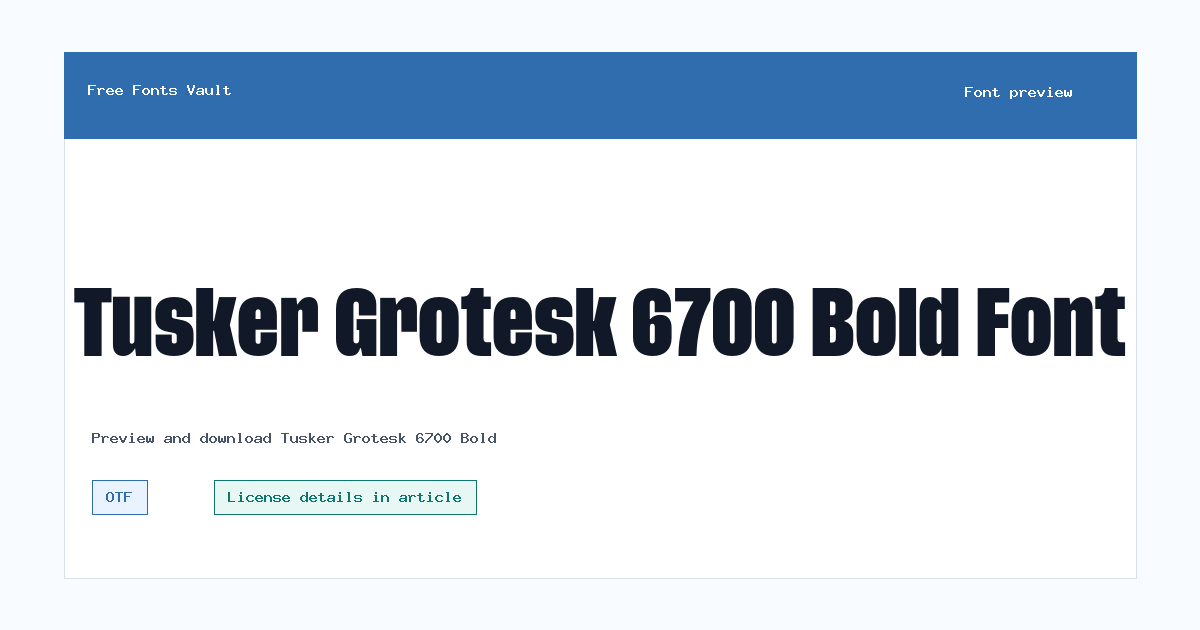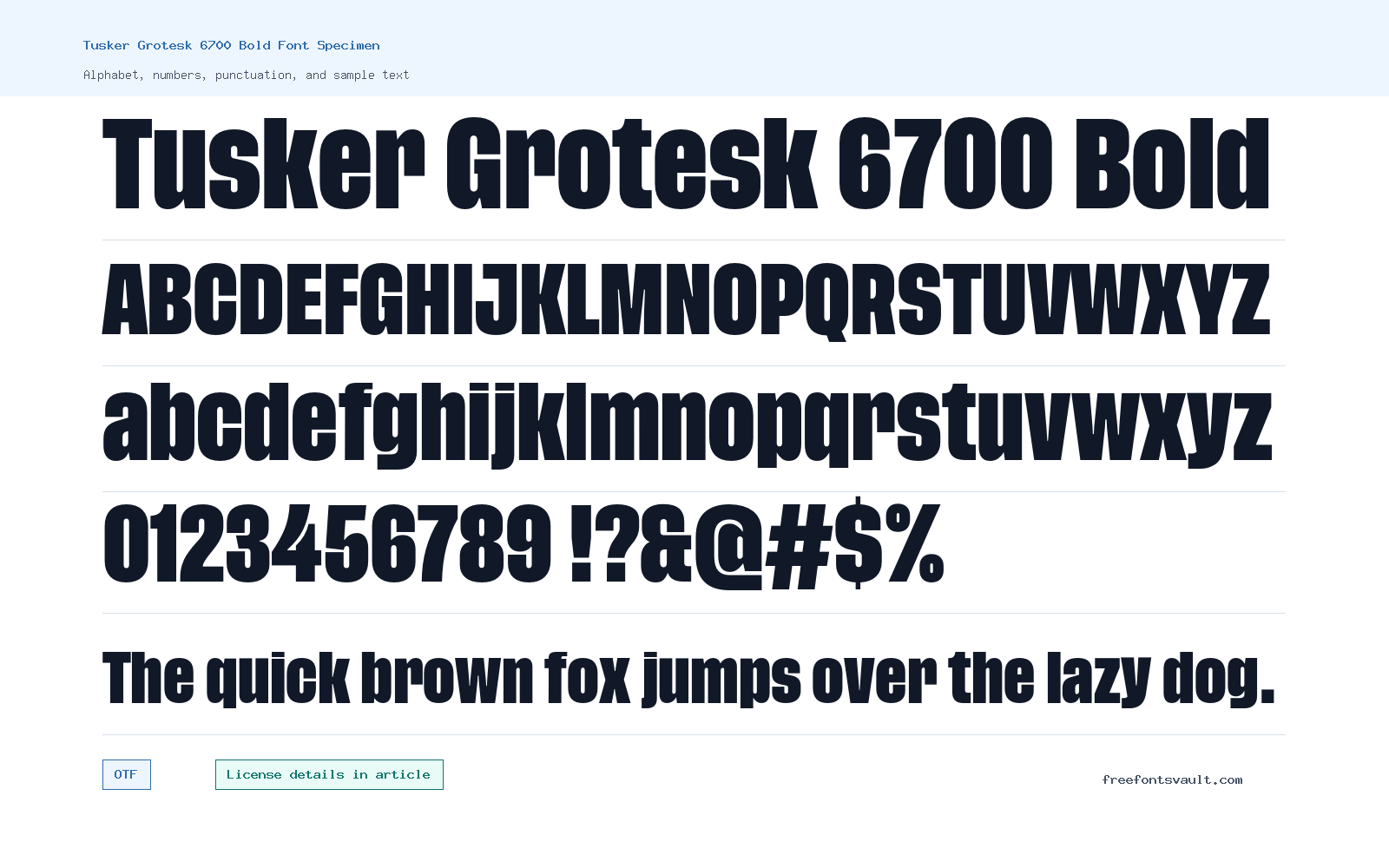
Tusker Grotesk 6700 Bold
- Designer Lewis McGuffie
- Foundry Lewis McGuffie
Tusker Grotesk 6700 Bold font.
Tusker Grotesk 6700 Bold is a bold OTF font from Lewis McGuffie. It is a useful choice to test when you need a strong sans-serif headline style with clear impact in short text.
About Tusker Grotesk 6700 Bold
Tusker Grotesk 6700 Bold sits in the bold end of the Tusker Grotesk name, with the file marked as a 700-weight OpenType font. That makes it better suited to display settings than long reading blocks. Use the preview box to check how your own wording looks in large sizes, especially if you plan to use it for a title, poster line, label, or social graphic.
For strong grotesk headlines, whitespace is part of the design. Give the letters room above, below, and between nearby elements so the bold weight can stay readable instead of turning into a dark block.
- Bold 700-weight style for headline and display testing
- Posters, cover titles, banners, and short headline layouts
- Logos, labels, thumbnails, and social media graphics where a bold sans-serif look is needed
Tusker Grotesk 6700 Bold is credited to Lewis McGuffie, with Lewis McGuffie also listed as the foundry.
Start by previewing your exact words at the size you plan to use. Heavy display fonts can look powerful in one-line settings but may become tiring in long paragraphs, so keep it for short text and combine it with a simpler font for reading sections. Check the numerals and punctuation too if your design includes prices, dates, usernames, or technical labels. If you are setting dates, prices, or event names, preview the numerals and punctuation beside the letters because display families can vary in how evenly those characters balance.
What weight is Tusker Grotesk 6700 Bold?
The font is listed with a 700 weight, which is commonly treated as bold.
What is this font best used for?
It is best tested for short, high-impact text such as headlines, poster titles, labels, thumbnails, and display graphics rather than long body copy.
Who designed Tusker Grotesk 6700 Bold?
The font details credit Lewis McGuffie as the designer and foundry.